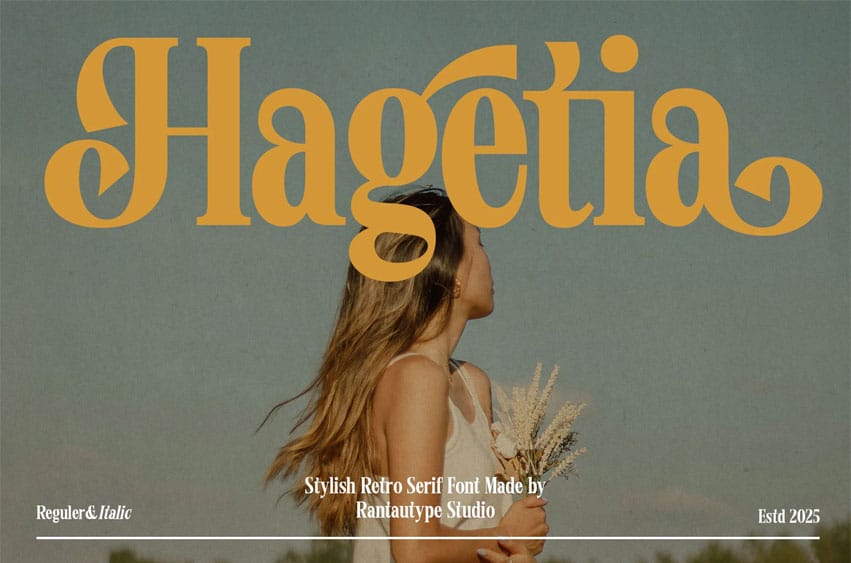
Hagetia Font is a stylish serif typeface that beautifully combines modern and nostalgic charm. It offers a variety of features, including alternates, ligatures, and support for multilingual characters.
Hagetia is the perfect choice for any creative project, including chic lifestyle designs, logotypes, advertisements, watermarks for photography, stationery, branding projects, displays, magazines, invitations, and corporate branding. Its retro touch makes it suitable for product design, labels, and various other projects.